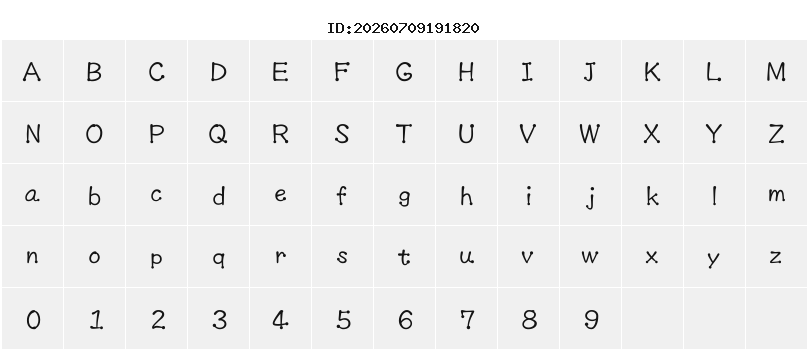
• Font Name: DFPTouW4-B5
About DFPTouW4-B5.ttf
DFPTouW4-B5.ttf is a modern, elegant sans-serif font designed for ultimate readability and visual harmony. Perfect for branding, headlines, web design, and print materials.